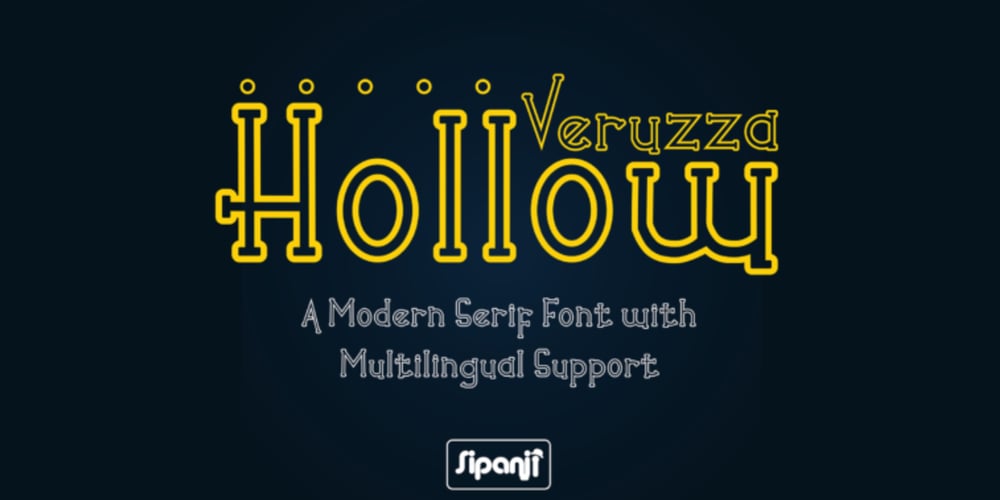
Veruzza Hollow
Veruzza Hollow font
Veruzza Hollow Font Family was designed by Sipanji and published by Sipanji21. Veruzza Hollow contains 1 styles and family package options. Veruzza Hollow is a cute and modern display font. This enchanting font will turn any creative idea into a true standout. Get creative with its unique look, and use it to brighten up any crafting project!